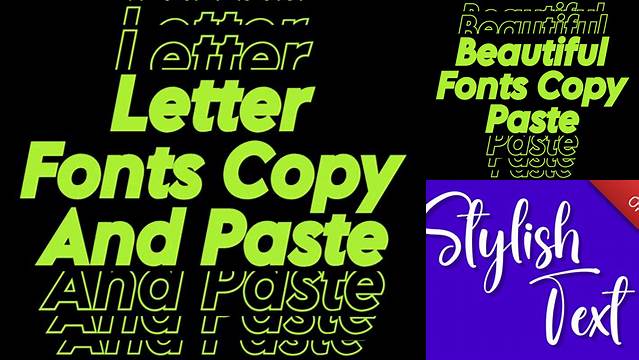
Stylish Text: Letter Fonts, Copy And Paste Guide
Hey guys! Ever wanted to add a little pizzazz to your social media posts, messages, or documents? You know, make your text stand out from the crowd? Well, you've come to the right place! In this article, we're diving deep into the world of letter fonts, and how you can easily copy and paste them to create visually appealing content. We'll explore different types of fonts, where to find them, and how to use them effectively. So, buckle up and get ready to transform your text game!
What are Letter Fonts?
Let's start with the basics. What exactly are letter fonts, and why should you even care about them? In the digital realm, a font is essentially a set of characters (letters, numbers, symbols) designed with a specific style and appearance. Think of it as the handwriting style for your computer or phone. Regular fonts, like Arial or Times New Roman, are the workhorses of the text world β they're reliable and easy to read. But sometimes, you need something moreβ¦ something with flair!
That's where these special letter fonts come in. These fonts go beyond the standard character sets, offering a variety of stylish and unique designs. They can range from elegant cursive scripts to bold, blocky letters, and even quirky, decorative styles. The beauty of these fonts is that they allow you to express your personality and creativity through text. Imagine jazzing up your Instagram bio with a fancy cursive font, or adding a touch of whimsy to your birthday party invitations with a playful, cartoonish typeface. The possibilities are endless!
But here's the catch: these aren't your typical installable fonts. You can't just download them and use them in Microsoft Word or Google Docs (at least, not in the traditional sense). Instead, these fonts are often created using Unicode characters β special symbols and glyphs that exist outside the standard alphabet. This means you can copy and paste them into most text fields, making them incredibly versatile for social media, messaging apps, and other online platforms.
The ability to copy and paste these letter fonts is what makes them so accessible and convenient. You don't need to be a graphic designer or font expert to use them. Simply find a font you love, copy the text, and paste it wherever you want. It's like having a whole library of custom fonts at your fingertips, without the hassle of installation or software compatibility issues. This accessibility has made letter fonts a popular choice for social media users, gamers, and anyone who wants to add a touch of personality to their online presence. Think about how you can use a bold, eye-catching font to grab attention on Twitter, or a subtle, elegant script to add a touch of sophistication to your email signature. The key is to choose fonts that reflect your style and the message you're trying to convey.
Why Use Letter Fonts?
Now that you know what letter fonts are, let's talk about why you might want to use them. There are several compelling reasons to incorporate these stylish fonts into your digital communication. The most obvious reason is to stand out from the crowd. In a world saturated with text, a unique font can instantly grab attention and make your message more memorable. Think about scrolling through your social media feed β what catches your eye? It's often the posts with visually appealing elements, including interesting fonts. Using these fonts can help you break through the noise and ensure your message is seen.
Another key benefit is the ability to express your personality. Fonts have a powerful way of conveying emotion and style. A playful, handwritten-style font can create a sense of fun and informality, while a bold, sans-serif font can project confidence and authority. By choosing fonts that align with your personal brand or the tone of your message, you can communicate more effectively and authentically. For example, if you're running a creative business, you might use a whimsical font to reflect your artistic flair. On the other hand, if you're a lawyer, you might opt for a more classic and professional typeface.
These fonts are also incredibly useful for branding purposes. Consistency is key when it comes to branding, and that includes your visual identity. By using a specific set of fonts across your social media profiles, website, and marketing materials, you can create a cohesive and recognizable brand image. This helps to reinforce your brand message and build trust with your audience. Imagine seeing a logo with a distinctive font β that font becomes associated with the brand, and every time you see it, you're reminded of that brand. You can achieve the same effect by using consistent fonts in your online communication.
Beyond personal branding, these fonts can also be used to highlight important information. A change in font can draw the reader's eye to key words, phrases, or calls to action. For instance, you might use a bold font to emphasize a headline, or a different font to distinguish quotes from the main body of text. This technique can help you organize your content and make it easier for your audience to digest. It's all about creating visual hierarchy and guiding the reader's attention to the most important elements.
Types of Letter Fonts Available
The world of letter fonts is incredibly diverse, offering a style for every taste and purpose. Let's explore some of the most popular categories of fonts you can find online. First up, we have script fonts. These fonts mimic the look of handwriting, ranging from elegant cursive to playful brushstrokes. Script fonts are perfect for adding a touch of sophistication to invitations, social media bios, or anything that needs a personal touch. Imagine using a flowing script font for your wedding invitations, or a casual brush script for your Instagram stories β the possibilities are endless!
So, there you have it β a comprehensive guide to letter fonts, copy and paste! With a little creativity and the right resources, you can transform your text from plain and ordinary to stylish and eye-catching. Remember to use these fonts judiciously, prioritize readability, and choose fonts that align with your message and brand. Now go forth and create some awesome text! Happy font-ing, guys!